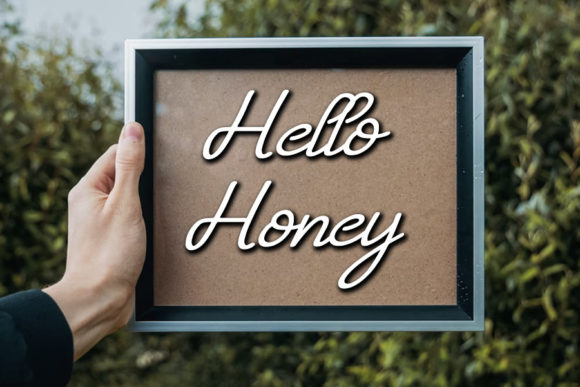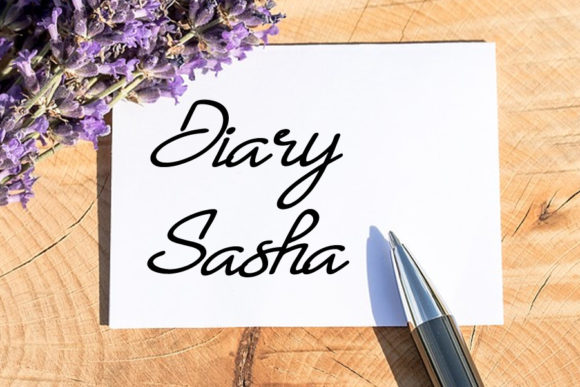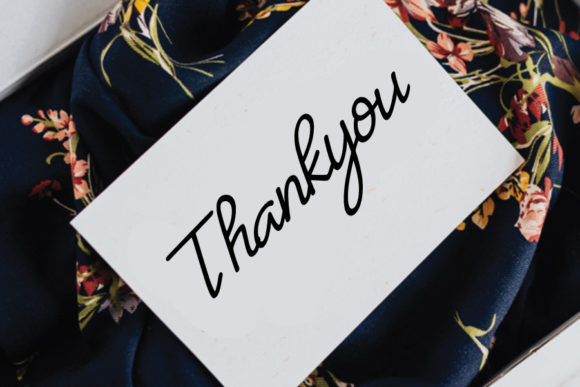
Introducing Automatic: A Delicate and Vintage Styled Handwritten Font
Are you a designer or crafter looking for a unique and versatile font to elevate your creative projects? Look no further than Automatic, a delicate and vintage styled handwritten font that’s sure to become an incredible asset to your font library. In this article, we’ll dive into the world of Automatic, exploring its features, benefits, and uses, and why it’s a must-have for any creative professional.
The Charm of Automatic
Automatic is a beautifully crafted handwritten font that exudes a sense of elegance and sophistication. Its delicate strokes and vintage flair make it perfect for a wide range of creative projects, from branding and packaging to invitations and stationery. Whether you’re looking to add a touch of whimsy or a dash of refinement to your designs, Automatic is the perfect choice.
Key Features of Automatic
- Unique and Handwritten: Automatic is a one-of-a-kind, handwritten font that’s been carefully crafted to provide a distinctive and personal touch to your designs.
- Vintage Flair: With its delicate strokes and classic feel, Automatic is perfect for creating designs that evoke a sense of nostalgia and timelessness.
- Versatile: Whether you’re working on a branding project, creating invitations, or designing packaging, Automatic is a versatile font that can adapt to any style or theme.
- Elegant and Refined: Automatic’s elegant strokes and refined feel make it perfect for creating sophisticated and high-end designs.
Benefits of Using Automatic
So why should you choose Automatic for your creative projects? Here are just a few benefits of using this beautiful font:
- Adds a Personal Touch: With its handwritten feel, Automatic adds a personal touch to your designs that’s hard to replicate with more traditional fonts.
- Evokes Emotion: Automatic’s vintage flair and delicate strokes evoke a sense of nostalgia and warmth, making it perfect for creating designs that resonate with your audience.
- Versatile and Adaptable: Whether you’re working on a digital project or a print design, Automatic is a versatile font that can adapt to any style or theme.
- Elevates Your Designs: With its elegant and refined feel, Automatic is sure to elevate your designs and take them to the next level.
Who Can Benefit from Automatic?
Automatic is a versatile font that can benefit a wide range of creative professionals, including:
- Graphic Designers: Whether you’re working on a branding project or creating marketing materials, Automatic is a great choice for adding a personal touch to your designs.
- Crafters and Artists: If you’re a crafter or artist looking for a unique and elegant font to use in your projects, Automatic is a great choice.
- Stationery and Invitation Designers: Automatic’s vintage flair and delicate strokes make it perfect for creating beautiful stationery and invitations.
Tips for Using Automatic
Here are a few tips for getting the most out of Automatic:
- Experiment with Different Sizes: Automatic looks great in a variety of sizes, so don’t be afraid to experiment and find the perfect size for your design.
- Pair with Other Fonts: Automatic pairs well with a range of other fonts, so try pairing it with a bold font for a striking contrast.
- Use in Digital and Print Designs: Automatic is a versatile font that can be used in both digital and print designs, so don’t be afraid to get creative.
In conclusion, Automatic is a delicate and vintage styled handwritten font that’s sure to become an incredible asset to your font library. With its unique and elegant feel, Automatic is perfect for a wide range of creative projects, from branding and packaging to invitations and stationery. Whether you’re a designer, crafter, or artist, Automatic is a must-have font that’s sure to elevate your designs and take them to the next level.